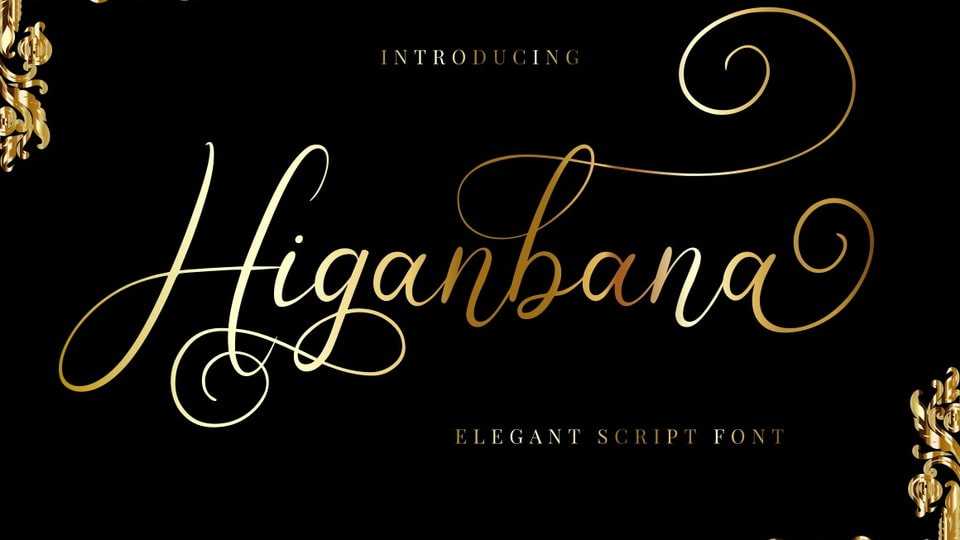
Download Higanbana font, an elegant and stylish typeface, made from natural handwriting, and carefully designed to get maximum results and is perfect for pairing with serif and sans serif fonts.
Designer: Rissyletter Studio